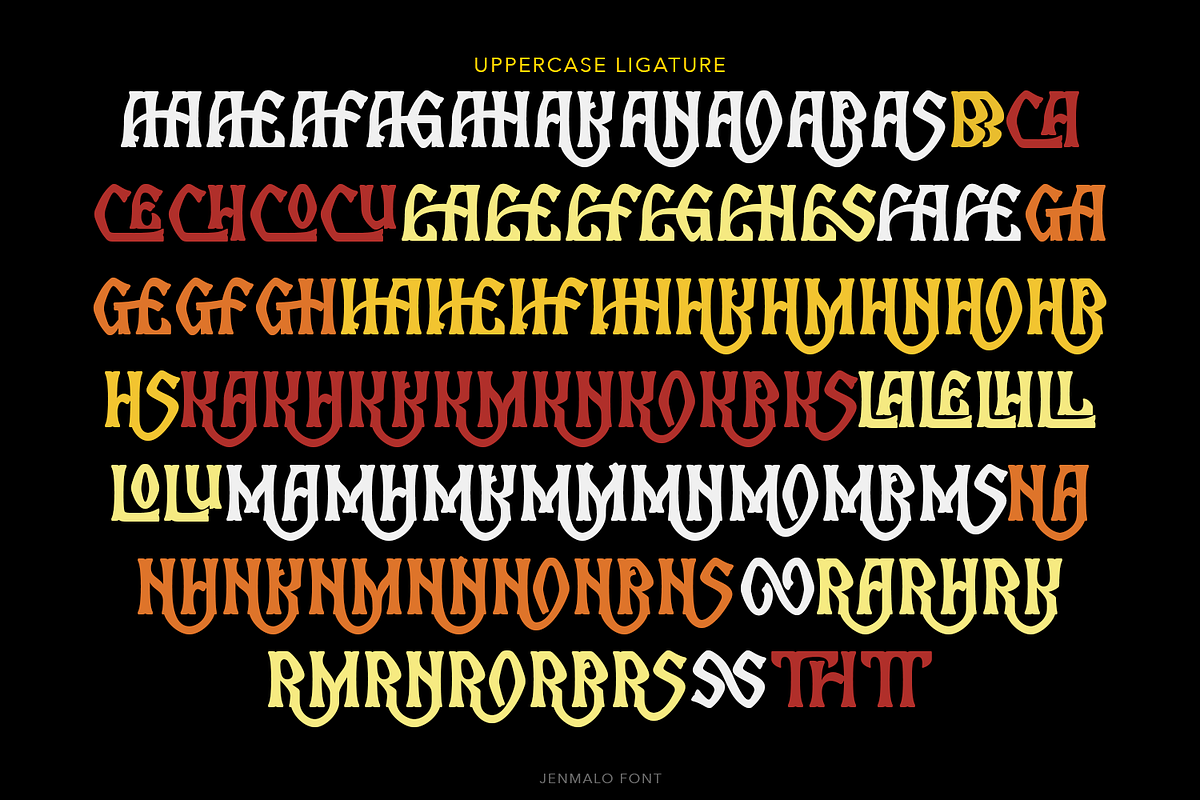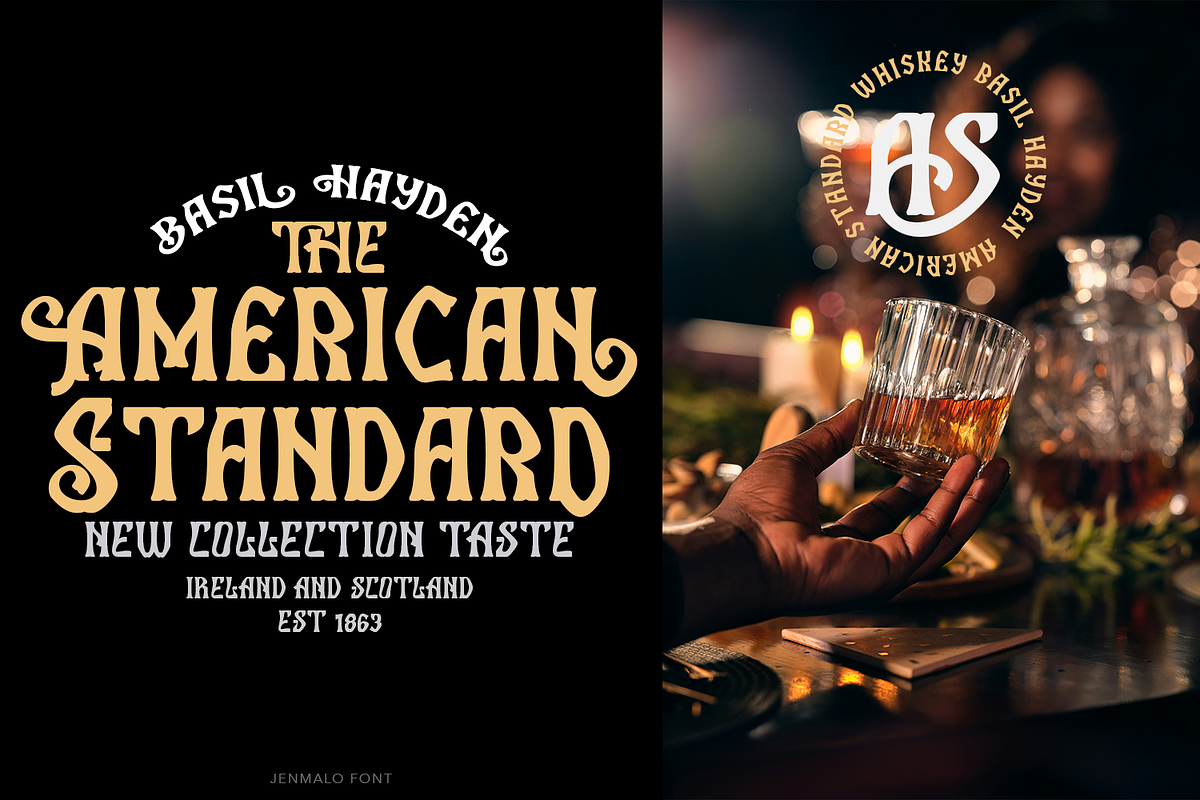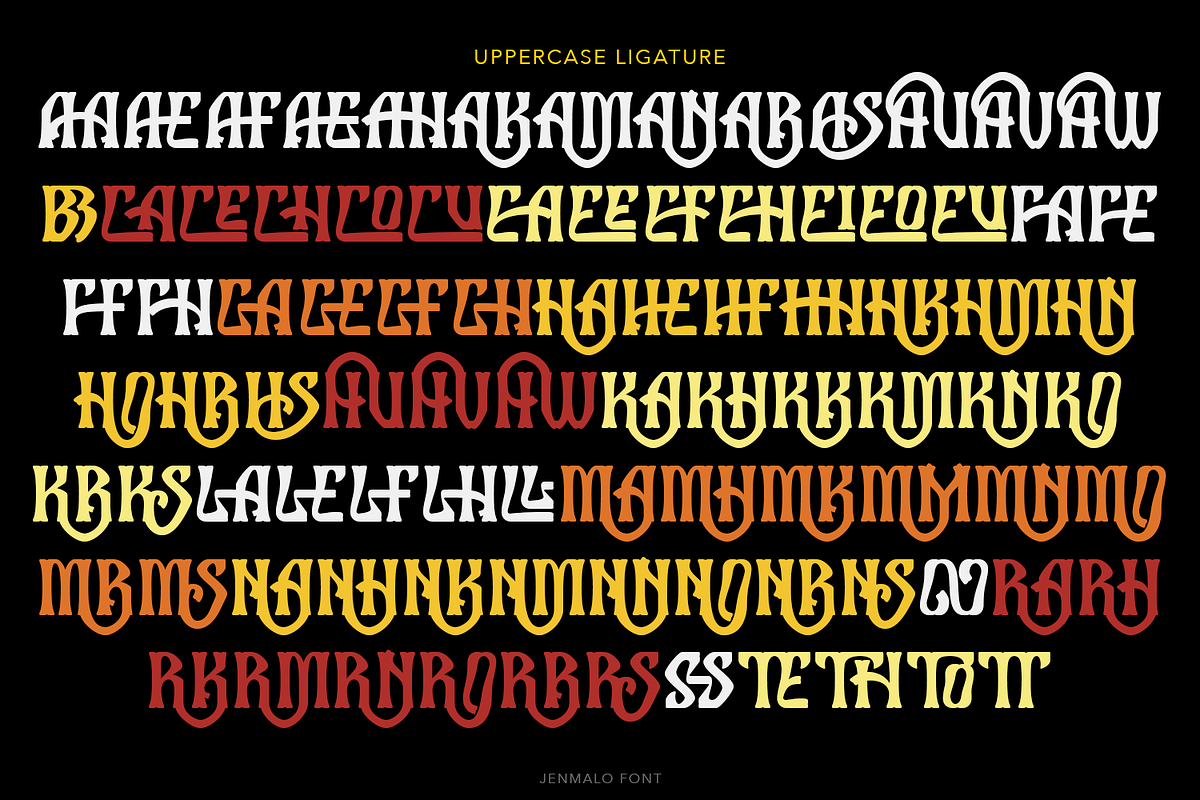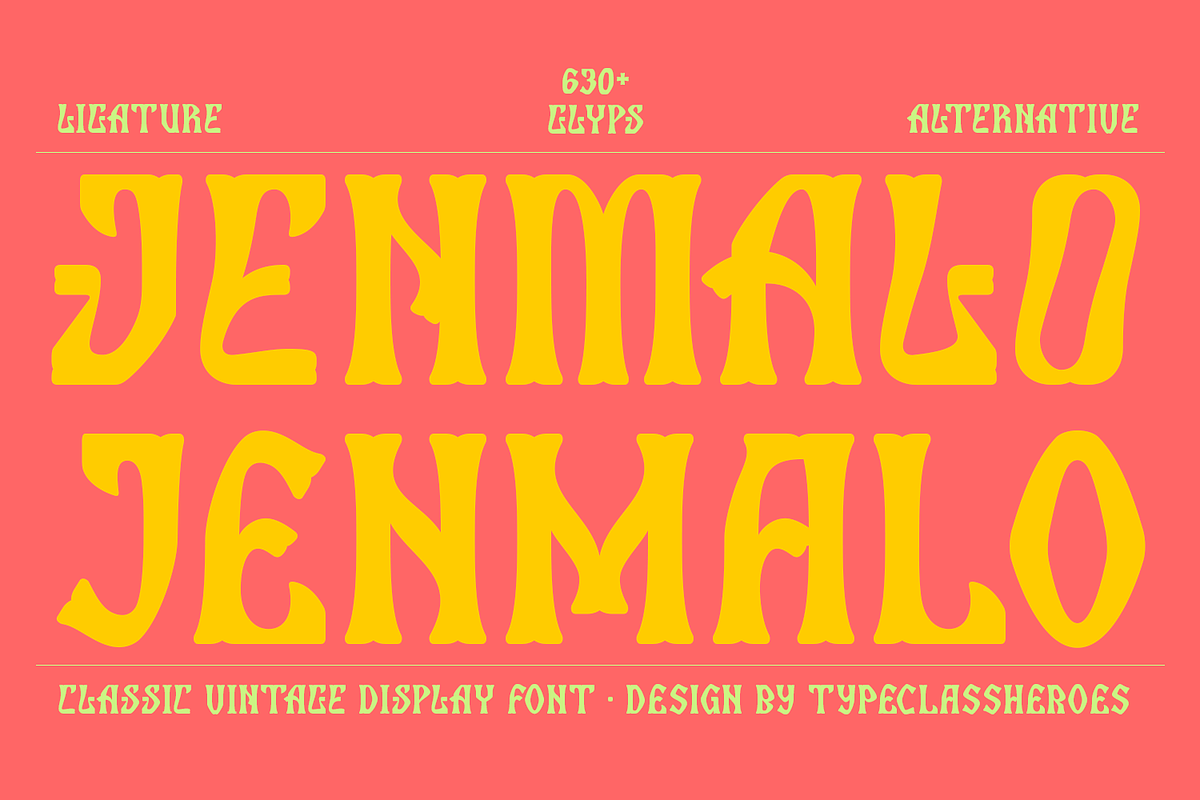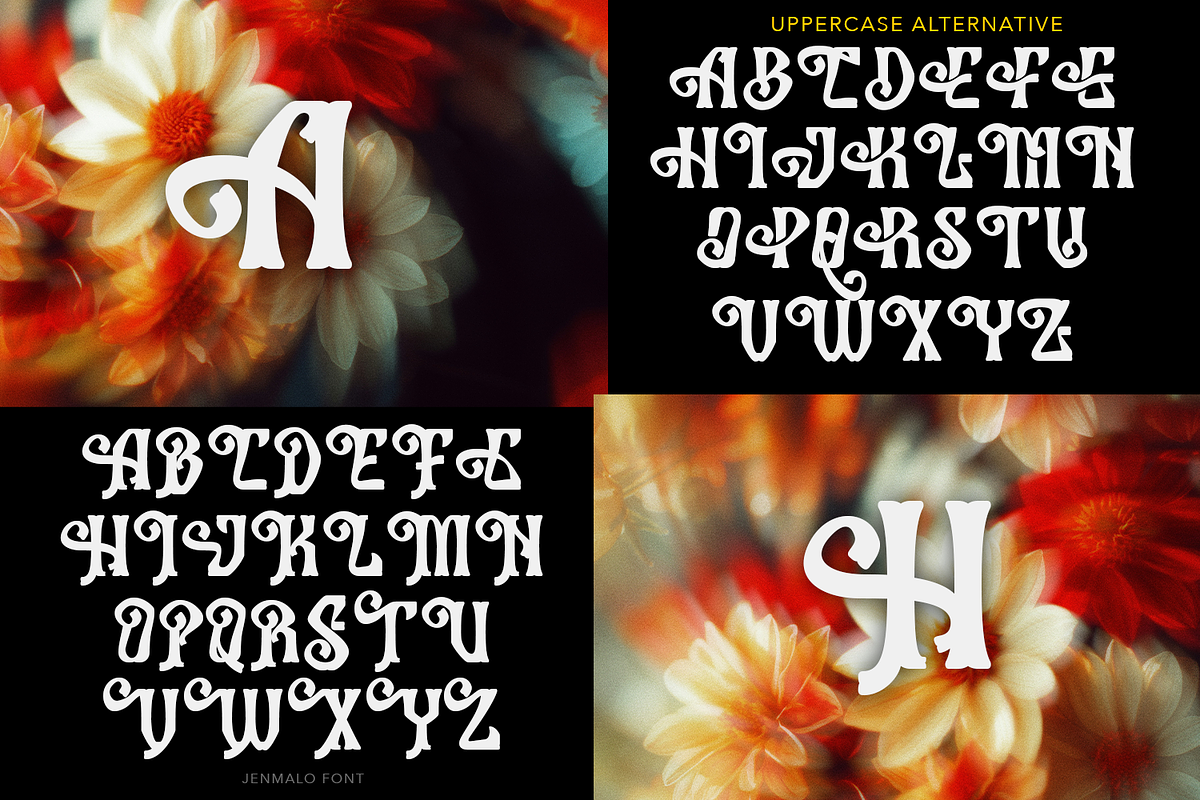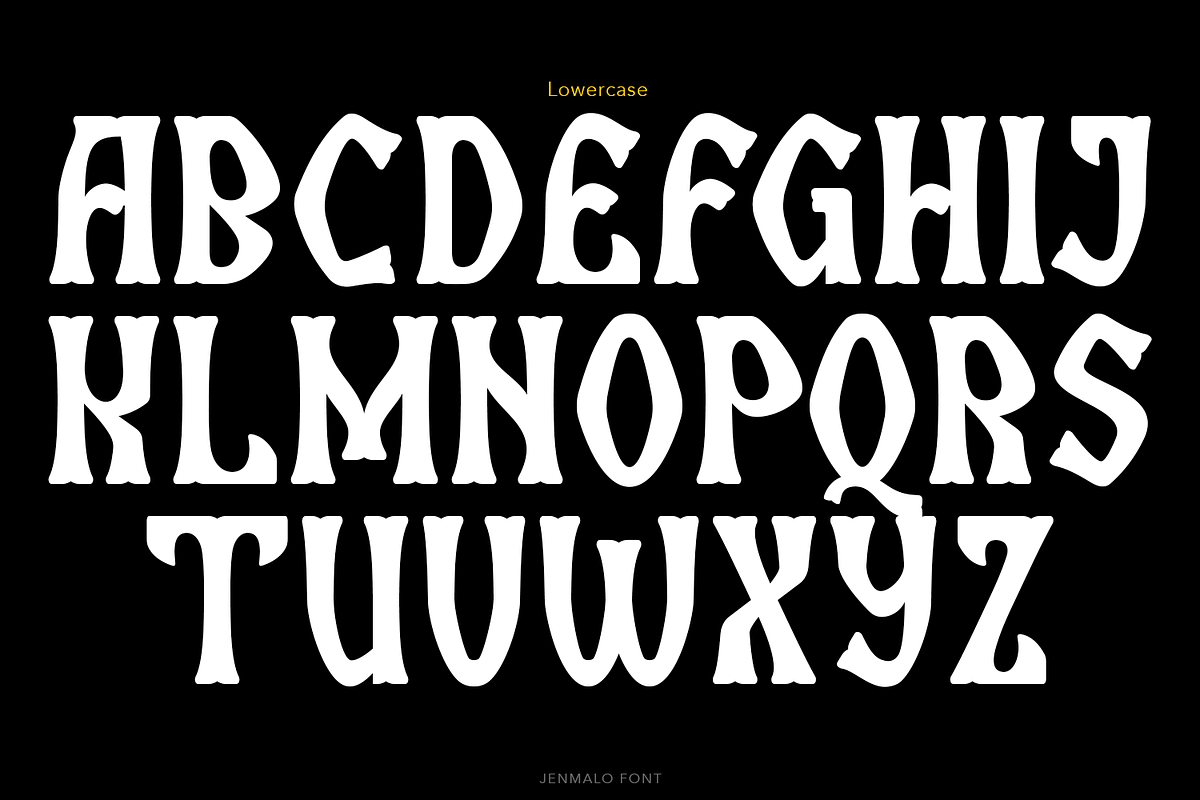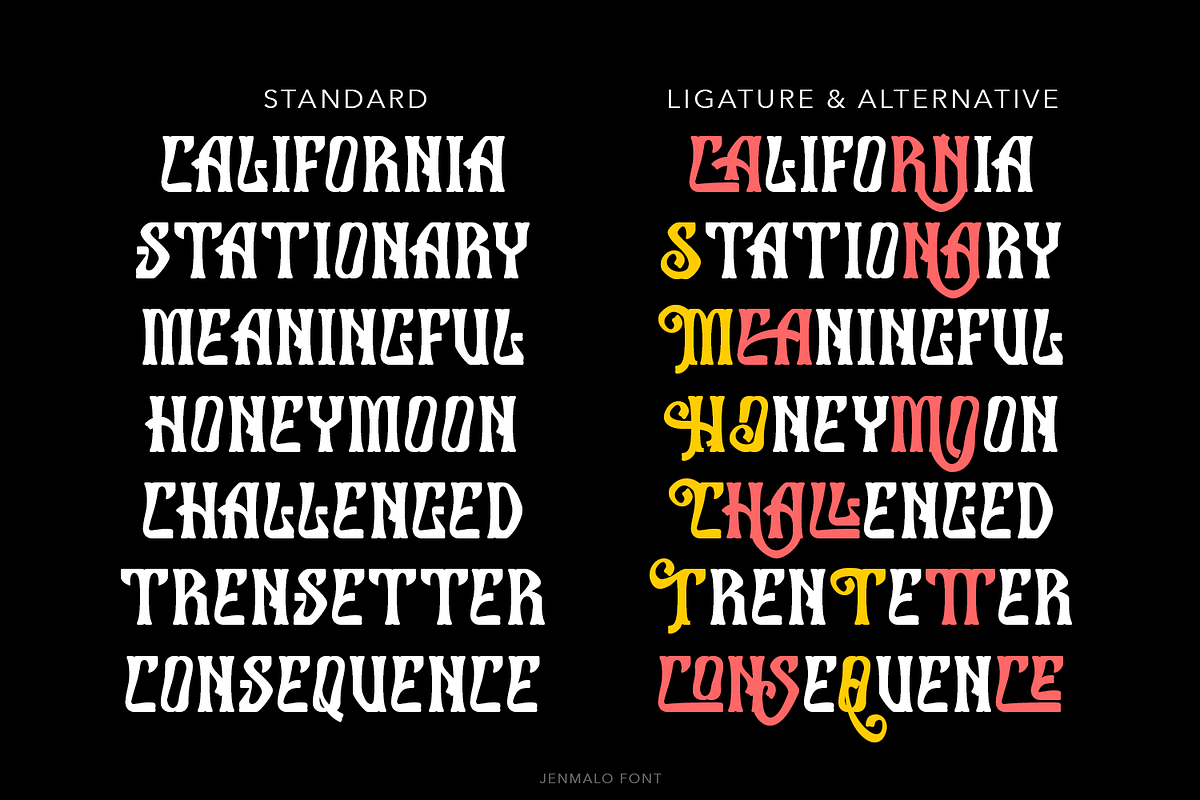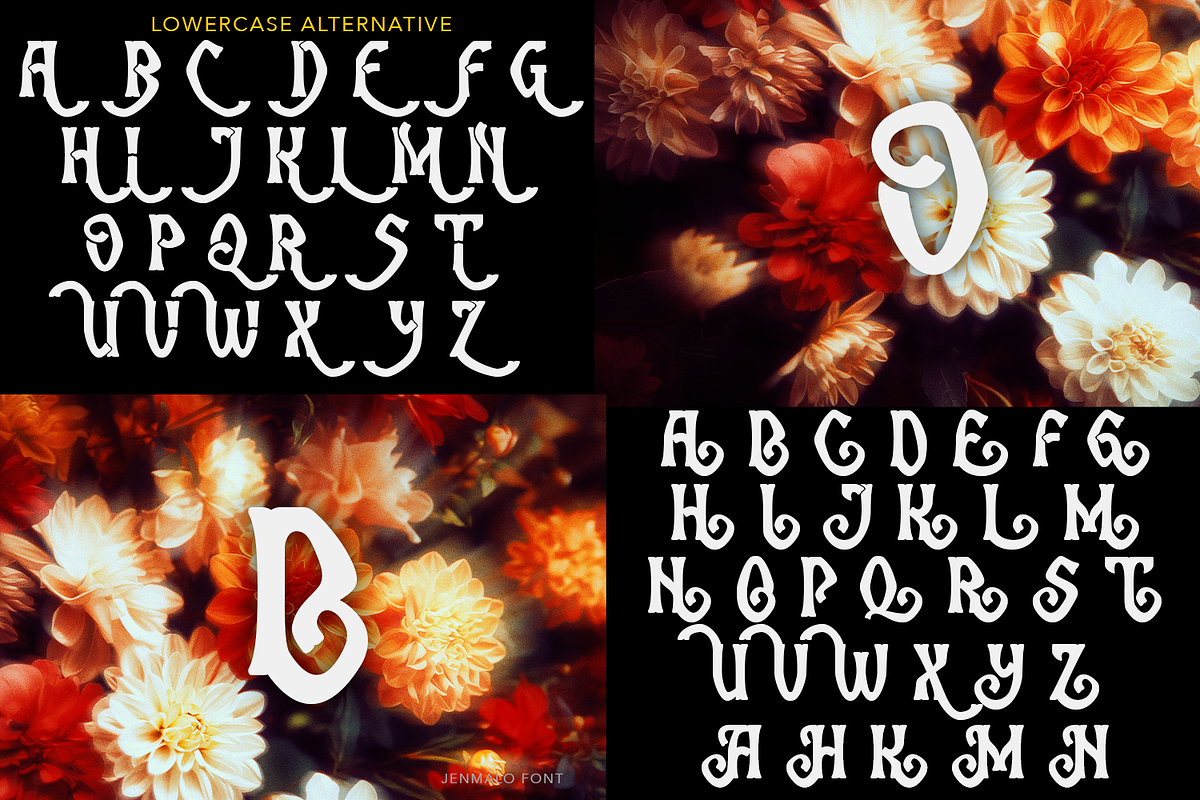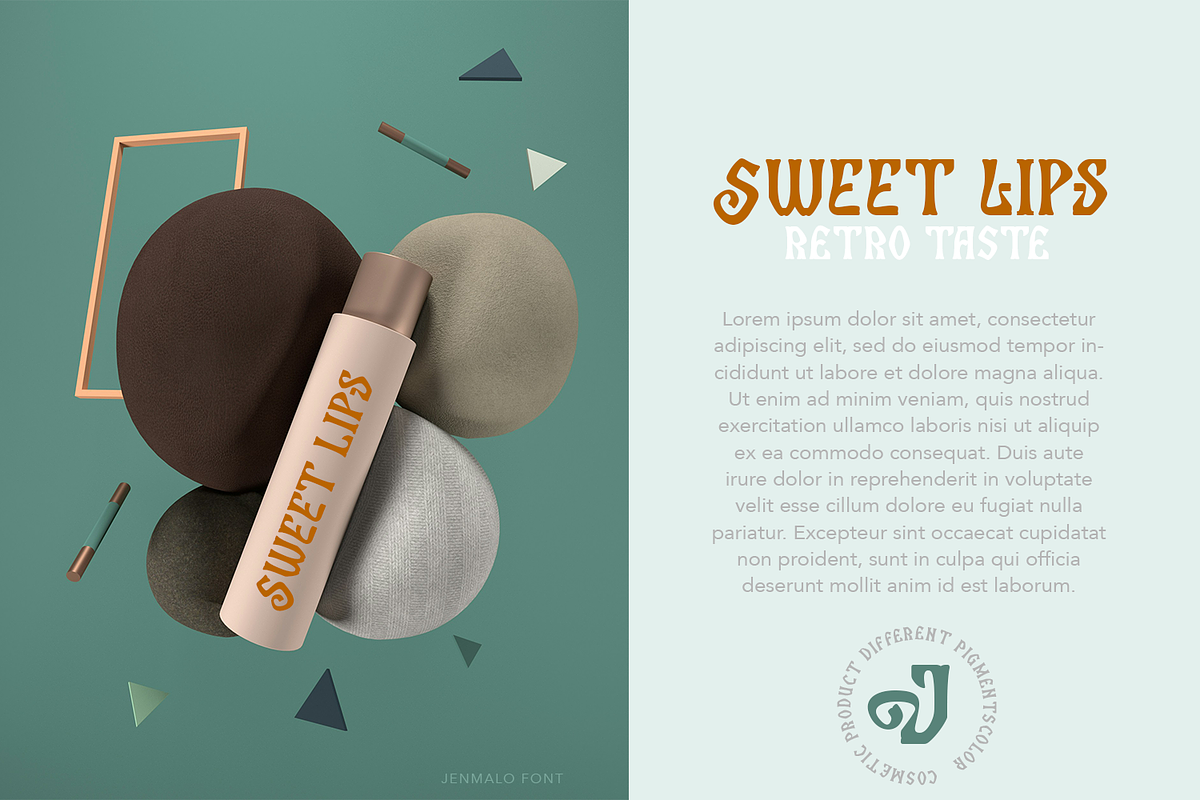
Jenmalo Display Font
Jenmalo is a vintage display font comes with proud all caps inspired by the cowboy era which will bring your project a classic strong and powerful touch. Browse through all the previews and get as inspired as I was when creating this font.